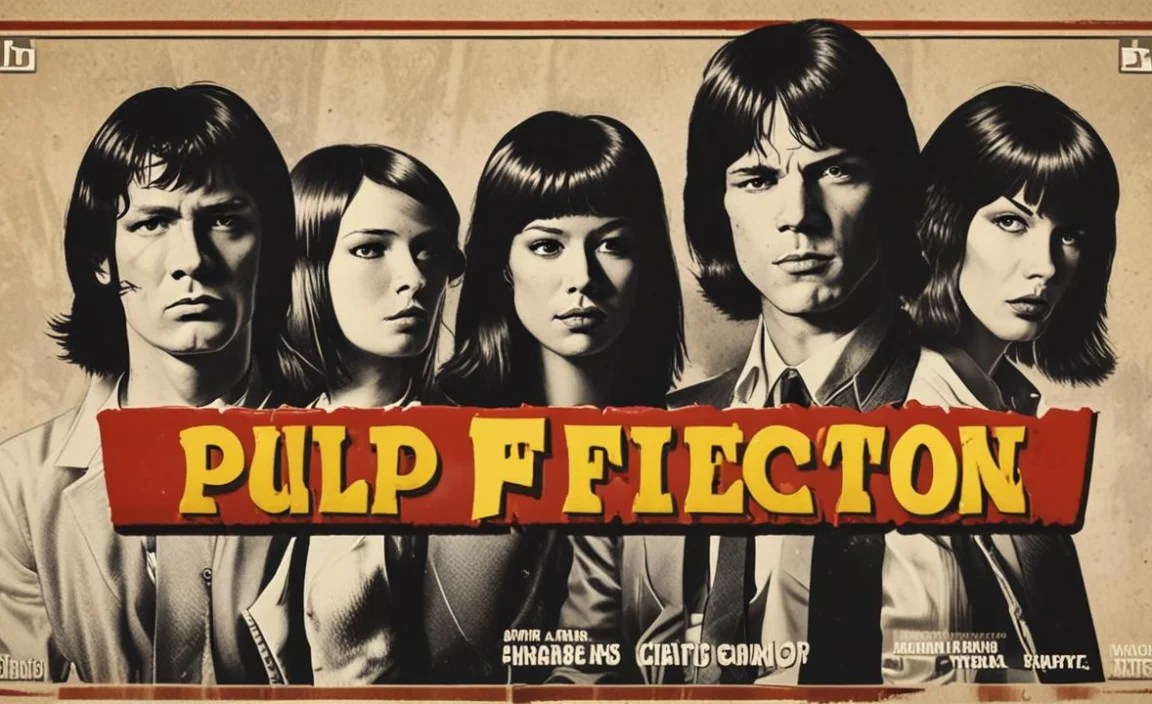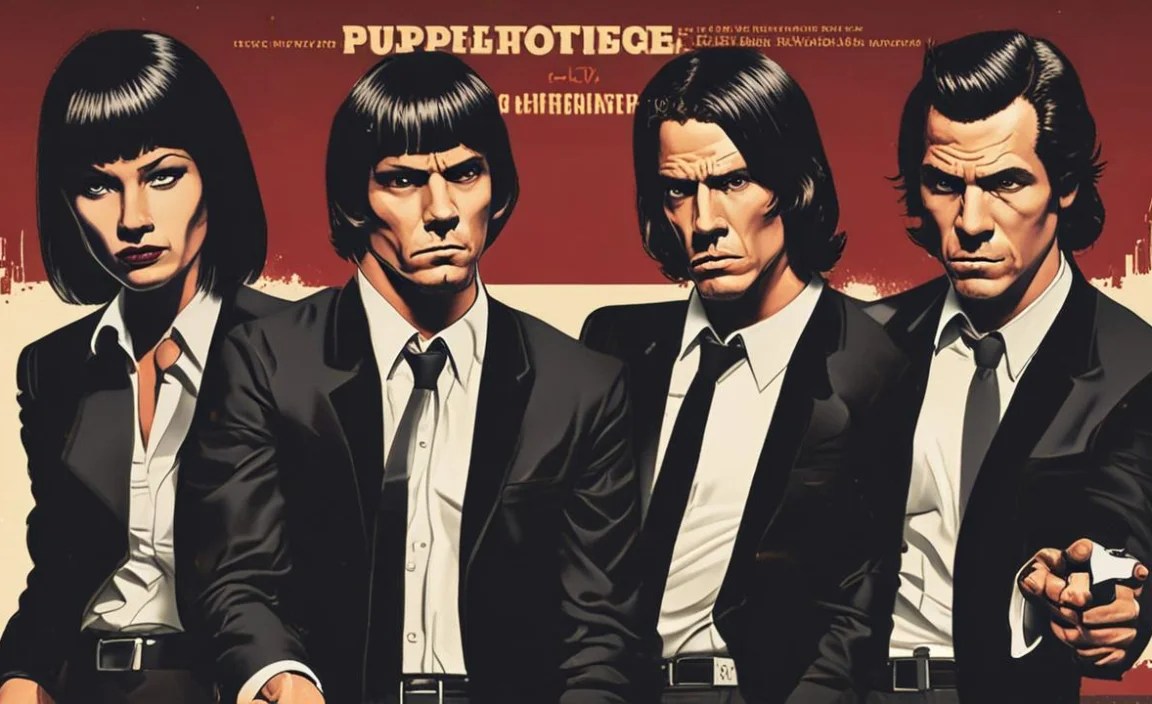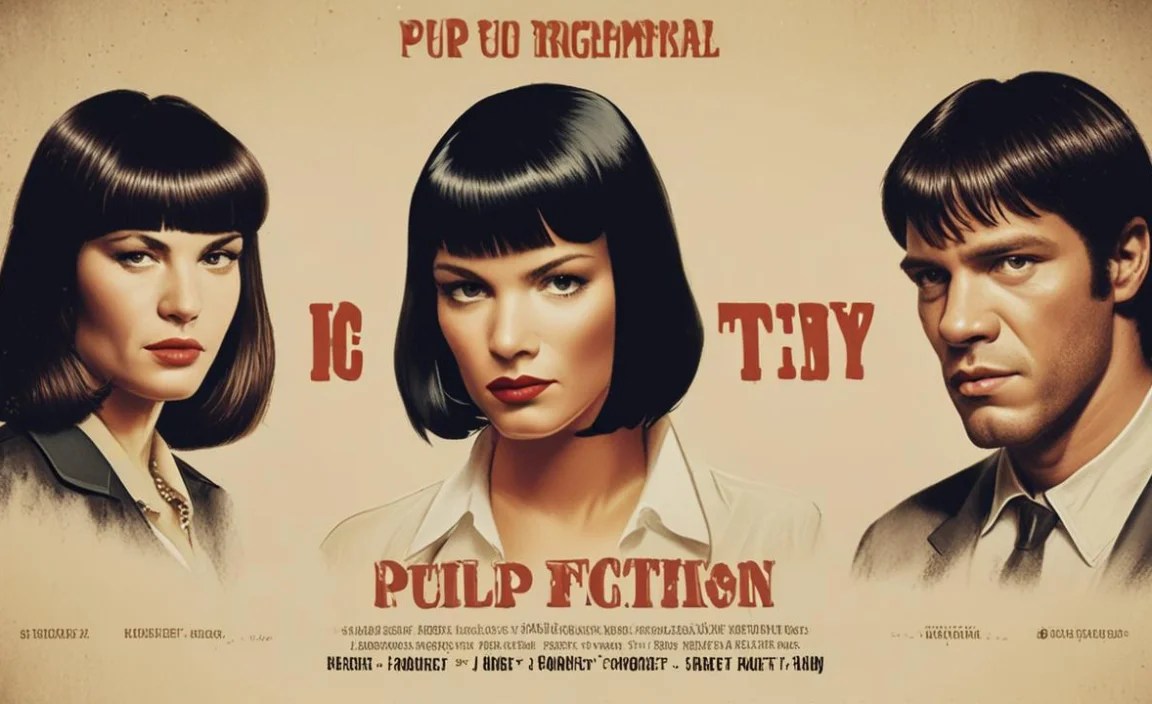
The “Pulp Fiction” font pays tribute to the iconic style of Quentin Tarantino’s 1994 film “Pulp Fiction.” Known for its sharp, bold, and distinctive design, this typeface captures the essence of the movie’s gritty, action-packed, and retro aesthetic.
While no font can fully replicate the unique feel of the movie’s opening credits and posters, several typefaces come close, bringing a sense of boldness and nostalgia to various creative projects. One of them is the Aachen Bold font.
Pulp Fiction Font Information
| Name | Pulp Fiction Font (Aachen Bold) |
| Style | Display |
| Designer | Colin Brignall and Alan Meeks |
| Type | Slab-Serif |
Pulp Fiction Font Family Includes
- Pulp Fiction
Where Pulp Fiction Font Is In Use
The Pulp Fiction font plays a significant role in evoking the bold, nostalgic, and gritty feel associated with Quentin Tarantino’s classic film. When using design software, applying effects such as bold outlines or shadowing can further enhance its retro and striking appearance. Notable uses include:
- Album Covers
- Promotional Material
- Themed Parties
- Movie Posters
- Album artwork
- T-shirt designs
- Creative Designs
- Noir-inspired graphic designs
1. What Are The Different Weights Available For the Pulp Fiction font?
Pulp Fiction fonts typically come in a single weight, Regular, designed to replicate the strong and impactful style seen in the movie’s typography.
2. How Does The Pulp Fiction Font Compare To Other Similar Fonts?
Pulp Fiction fonts stand out due to their strong, bold, and iconic Art Deco-inspired design. They differ from other retro fonts by incorporating specific characteristics that mimic the film’s unique typographic style.
3. What Are The Features Of The Pulp Fiction Font?
Features include bold, geometric lines, custom character modifications, and a retro Art Deco influence, making it instantly recognizable and iconic.
4. Why Is The Pulp Fiction Font Popular In Design?
Its association with Quentin Tarantino’s iconic film makes the font a popular choice for designs aiming to evoke a sense of nostalgia, boldness, and cinematic drama. It captures the essence of the movie’s vintage and edgy style, making it a favorite for retro-themed projects.